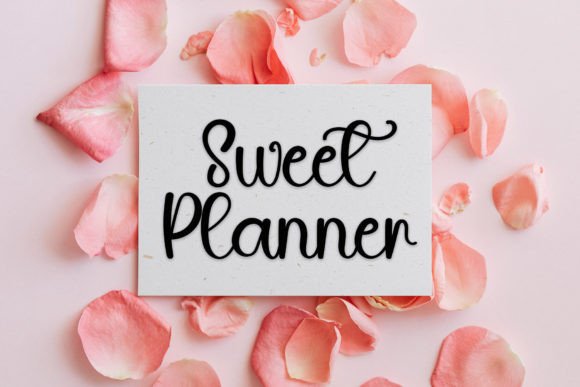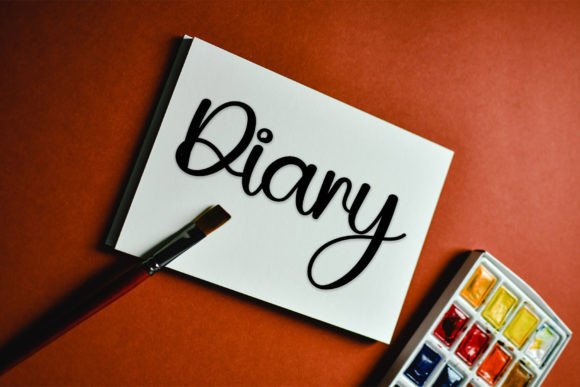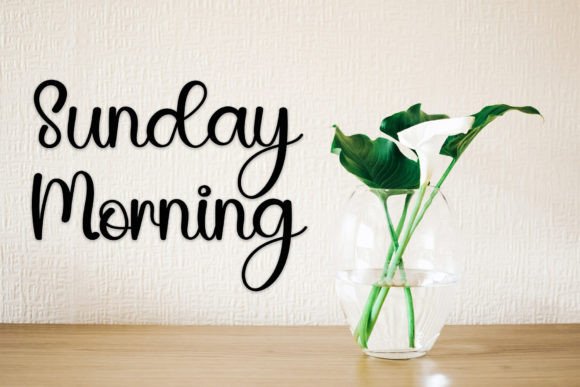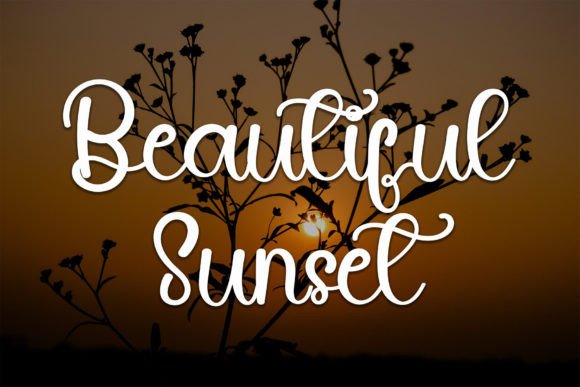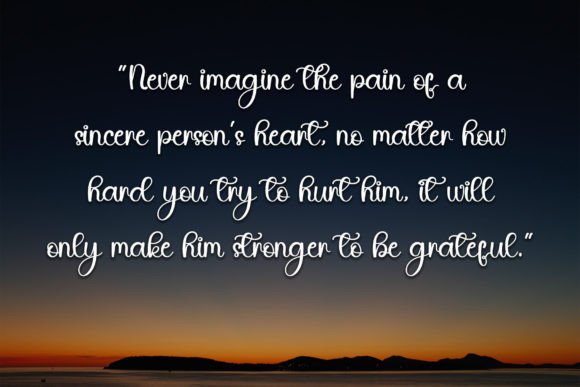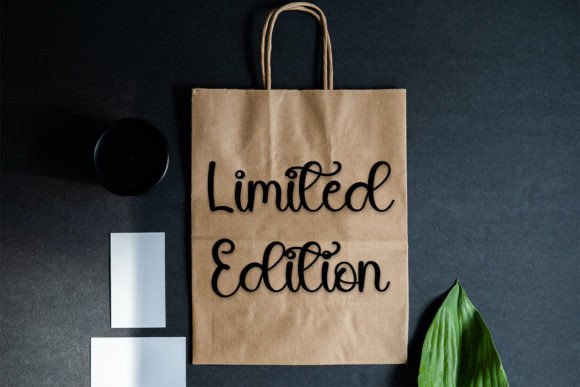
The Great Font: Elevate Your Designs with Elegance
Have you ever been in the middle of a design project, and suddenly, you’re stuck on finding the perfect font? I recall a recent experience where a client’s request for an elegant, handwritten font had me scouring the internet for hours. That’s when I stumbled upon the Great Font, and it instantly became my go-to choice. In this article, I’ll share my love for this beautiful font, its features, and how to make the most of it in your designs.
An Honest Review of Great Font
I’m excited to dive into the details of what makes Great Font a standout choice for designers, crafters, and creative hobbyists.
What I Love About Great Font
- ✨ Elegant and Timeless Style: Great Font boasts an incredibly distinct and timeless style that adds a touch of sophistication to any project.
- ✅ Versatility: Its neat and beautiful handwritten design makes it perfect for a wide range of projects, from branding and advertising to crafting and DIY tutorials.
- 💫 Distinctive Character: The font’s elegant touch sets it apart from other handwritten fonts, giving your designs a unique personality.
While Great Font is an excellent choice, there are a few minor considerations to keep in mind:
- 🤔 Limited Use in Small Sizes: Like many handwritten fonts, Great Font may lose some of its elegance when used in very small sizes. It’s best suited for headings, titles, or larger text.
- ⚠️ Glyph Limitations: While Great Font offers a range of glyphs and OpenType features, it may not have an extensive character set compared to some other fonts.
The Backstory of Great Font
While the origins of Great Font might be shrouded in mystery, it’s easy to imagine that it was created by a designer with a passion for elegant, handwritten typography. Perhaps the designer was inspired by classic calligraphy and sought to create a font that would bring a touch of sophistication to modern designs. Whatever the story, Great Font has undoubtedly become a beloved choice among designers and crafters.
| What makes Great Font unique? | Great Font’s elegant and timeless style, combined with its distinctive character, sets it apart from other handwritten fonts. |
| Does Great Font support OpenType features? | Yes, Great Font offers a range of OpenType features, glyphs, and stylistic alternates, making it a versatile choice for designers. |
In conclusion, Great Font is an exceptional choice for designers, crafters, and creative hobbyists looking to add a touch of elegance to their projects. With its timeless style, versatility, and range of OpenType features, it’s no wonder Great Font has become a favorite among creatives. So go ahead, give Great Font a try, and elevate your designs to the next level!